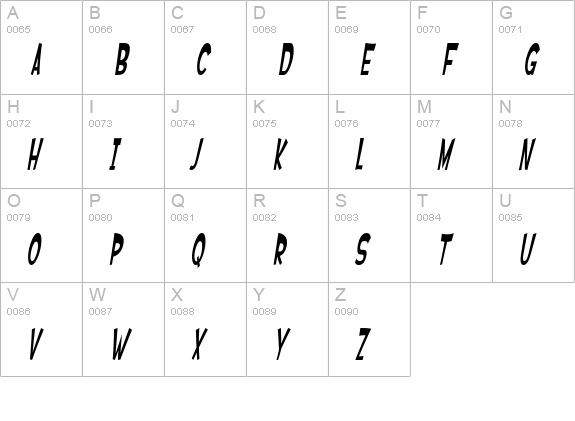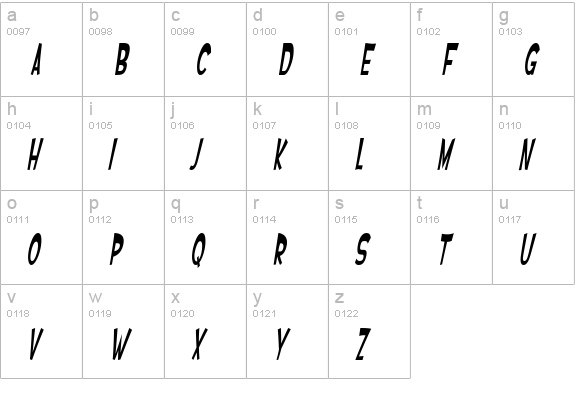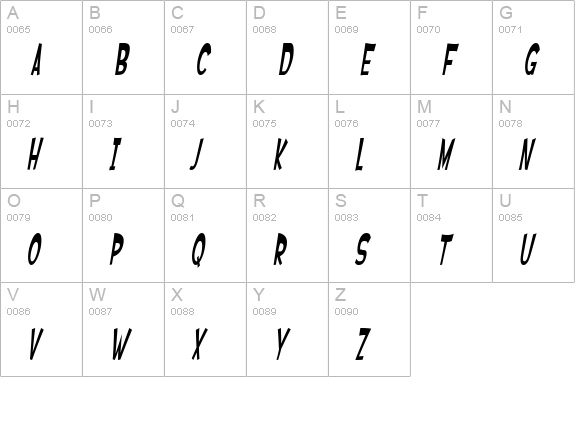
SF Ferretopia Oblique Font Details
SF Ferretopia Oblique is a distinctive, italic variant in the SF typeface family \xE2\x80\x94 well suited to design and typography projects.
SF Ferretopia Oblique is a stunning and dynamic font that effortlessly blends elegance with a touch of playfulness. This font is perfect for those looking to add a unique and modern twist to their designs. With its slanted and oblique style, SF Ferretopia Oblique is sure to captivate and inspire. Featuring clean lines and carefully crafted curves, this font exudes a sense of sophistication and creativity. Each letter is meticulously designed to create a harmonious balance between form and function. Whether used for headlines, logos, or body text, SF Ferretopia Oblique will effortlessly elevate any design project. One of the most exciting aspects of SF Ferretopia Oblique is that it is available for free download at FontsMarket.com. This means that designers, creatives, and enthusiasts alike can easily access this incredible font without any cost. The freedom to experiment and explore new possibilities with SF Ferretopia Oblique is at your fingertips. Unleash your creativity and let SF Ferretopia Oblique be your guide. Whether you are designing a website, crafting a poster, or creating a branding project, this font will undoubtedly make a lasting impression. Its versatility and striking aesthetic make it suitable for a wide range of applications, ensuring that your designs will stand out from the crowd. Don't miss out on the opportunity to enhance your design arsenal with SF Ferretopia Oblique. Download this exceptional font today, completely free, at FontsMarket.com. Experience the freedom of expression and unlock a world of possibilities with this remarkable typeface.